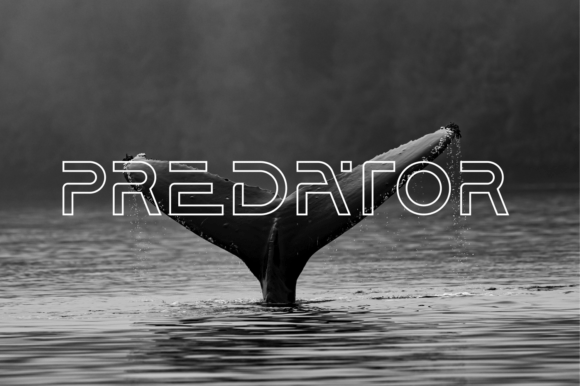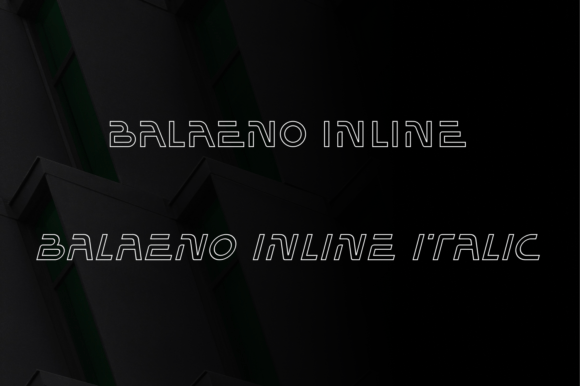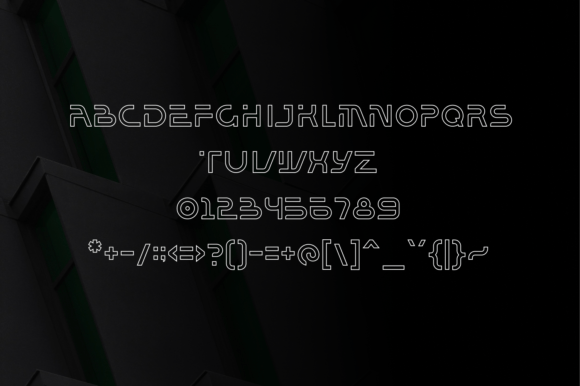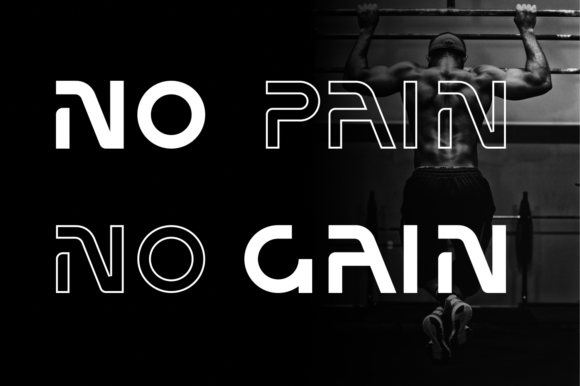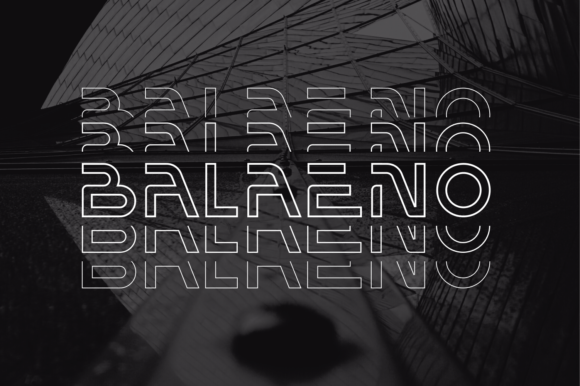
Balaeno Inline Font: Where Modern Innovation Meets Timeless Elegance
In the world of typography, few fonts manage to strike a balance between modern technological innovation, sporting spirit, and timeless elegance. Balaeno Inline Font is one such remarkable creation that seamlessly combines these elements into a captivating and versatile typeface. With its sleek design and sharp lines, Balaeno not only reflects contemporary trends but also exudes cutting-edge technological vibes, making it suitable for a wide range of design projects.
The Design Philosophy Behind Balaeno
Balaeno’s design philosophy revolves around the fusion of modernity and classic sophistication. Its sleek lines and streamlined appearance give it a contemporary look that is instantly appealing to designers who are looking for a font that can convey a sense of innovation and forward-thinking. At the same time, Balaeno’s elegant curves and balanced proportions ensure that it retains a timeless quality, making it versatile enough to be used in various contexts, from digital interfaces to print materials.
Key Features of Balaeno Inline Font
- Sleek and Modern Design: Balaeno’s design is characterized by its sleek lines and modern aesthetic, making it perfect for projects that require a contemporary look and feel.
- Sharp Lines and Cutting-Edge Vibes: The font’s sharp lines and precision-cut edges give it a cutting-edge appearance that is ideal for technology-related projects, sports branding, and any design that aims to convey a sense of innovation.
- Timeless Elegance: Despite its modern look, Balaeno exudes a sense of timeless elegance that makes it suitable for luxury brands, high-end products, and any project that requires a touch of sophistication.
- Versatility: Balaeno’s versatile design makes it suitable for a wide range of applications, from digital interfaces and mobile apps to print materials such as brochures, posters, and business cards.
Applications of Balaeno Inline Font
Balaeno’s unique combination of modern innovation and timeless elegance makes it an excellent choice for various design projects. Some potential applications include:
- Technology and Software Branding: Balaeno’s cutting-edge appearance makes it a perfect fit for technology companies, software applications, and digital services.
- Sports and Fitness Branding: The font’s sleek and dynamic design also makes it suitable for sports brands, fitness apps, and any project that aims to convey energy and movement.
- Luxury and High-End Products: Balaeno’s elegant and sophisticated appearance makes it an excellent choice for luxury brands, high-end products, and premium services.
- Digital Interfaces and Mobile Apps: The font’s clean and readable design makes it ideal for digital interfaces, mobile apps, and any project that requires a modern and user-friendly typography.
Why Choose Balaeno Inline Font?
In a world where typography plays a crucial role in shaping brand identities and user experiences, Balaeno Inline Font stands out as a versatile and captivating typeface. Its unique combination of modern innovation, sporting spirit, and timeless elegance makes it an excellent choice for designers and crafters who are looking for a font that can elevate their projects and convey their message with clarity and style.
Whether you’re designing a cutting-edge technology product, a luxury brand, or a sports app, Balaeno Inline Font offers the perfect blend of modernity and sophistication to make your project stand out. With Balaeno, you can create stunning designs that not only reflect contemporary trends but also exude a sense of innovation and timeless elegance.
| Font Name | Balaeno Inline Font |
| Author | IWM Design |
Balaeno Inline Font is a remarkable typeface that seamlessly combines modern technological innovation, sporting spirit, and timeless elegance into one captivating font. With its sleek design, sharp lines, and versatile appearance, Balaeno is an excellent choice for designers and crafters who are looking for a font that can elevate their projects and convey their message with clarity and style. Whether you’re working on a technology-related project, a luxury brand, or a sports app, Balaeno Inline Font is the perfect choice for creating stunning designs that reflect contemporary trends and exude a sense of innovation and sophistication.